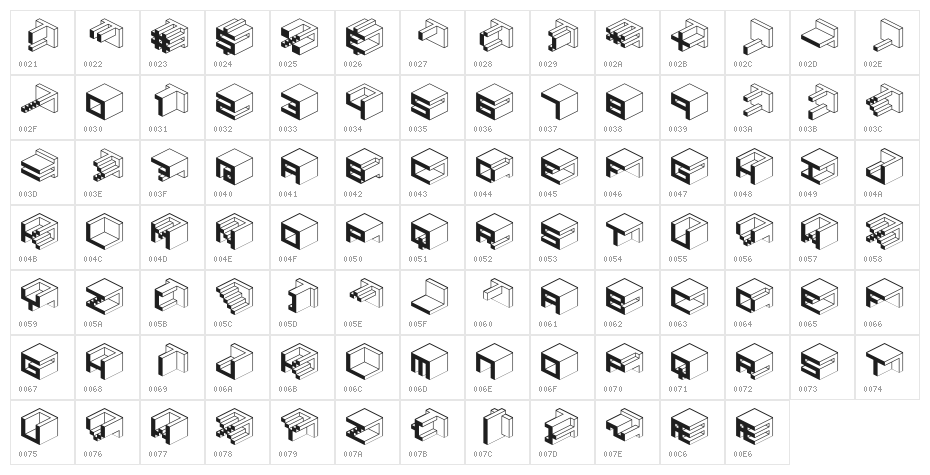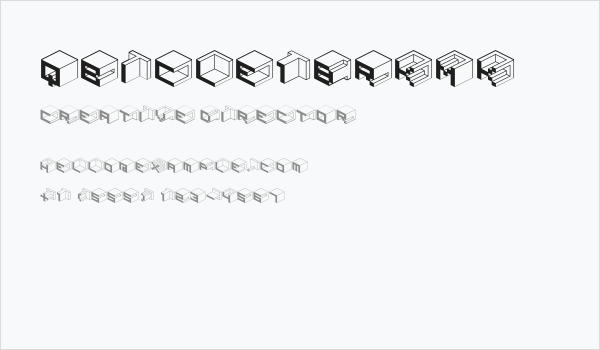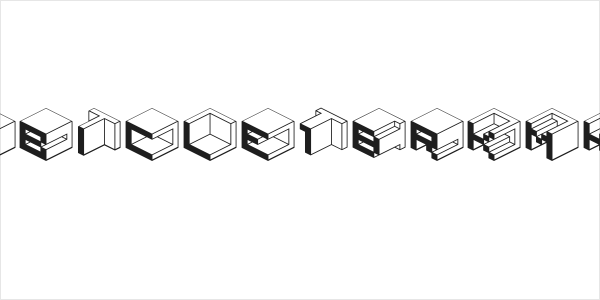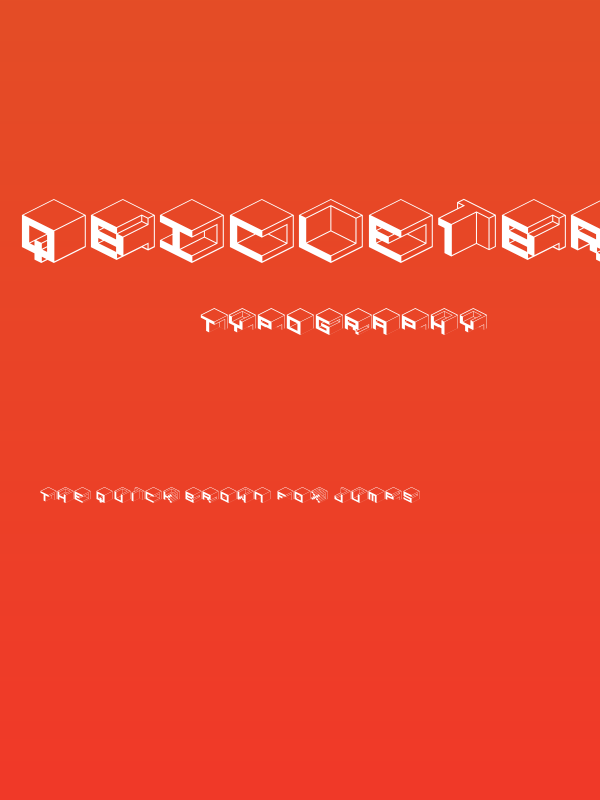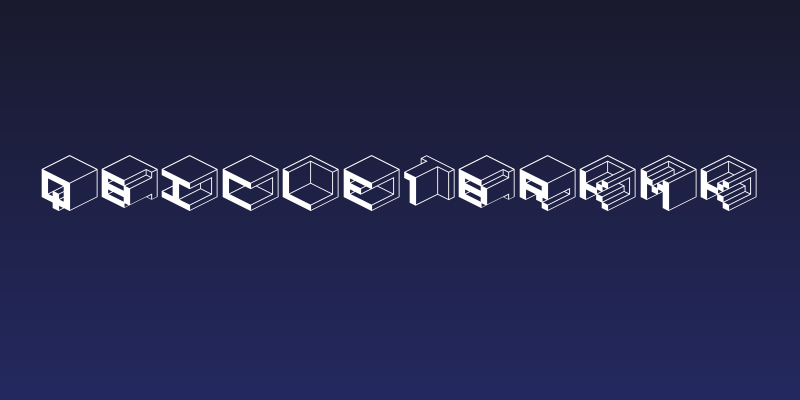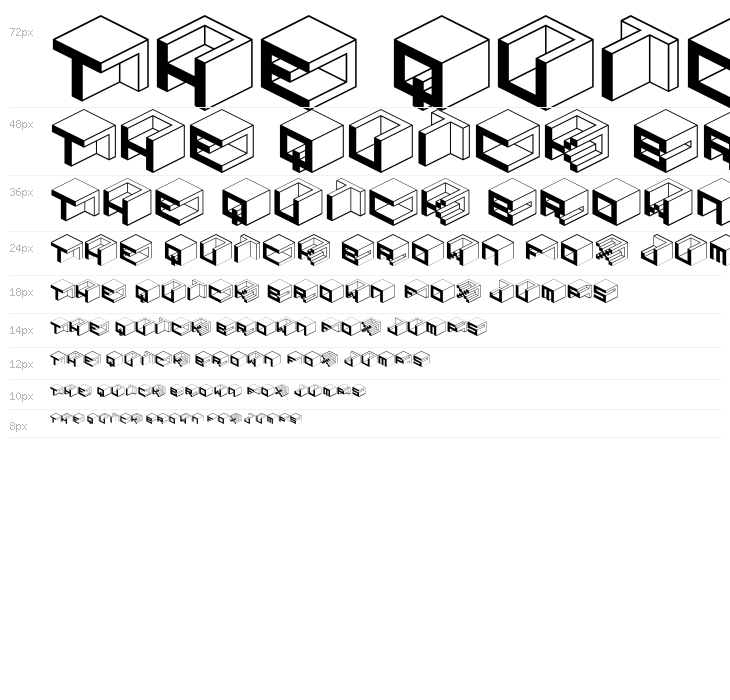
Qbicle1BRKMK Font
Qbicle1BRKMK Description
This font features a unique and modern design, with each character enclosed within a cube-like structure. The letters are constructed with bold, geometric lines that create a three-dimensional effect, making them stand out with a distinct architectural style. The font combines elements of isometric design, giving it a futuristic and innovative appearance. Each character is meticulously crafted to maintain consistency in style, while the use of negative space within the cubes adds to its visual intrigue. This font is ideal for projects that require a bold statement and a contemporary aesthetic.
| Use Case | Logos, Posters, Branding |
| Proposed Projects | Ideal for branding, logos, posters, and any design project that seeks a futuristic and innovative look. |